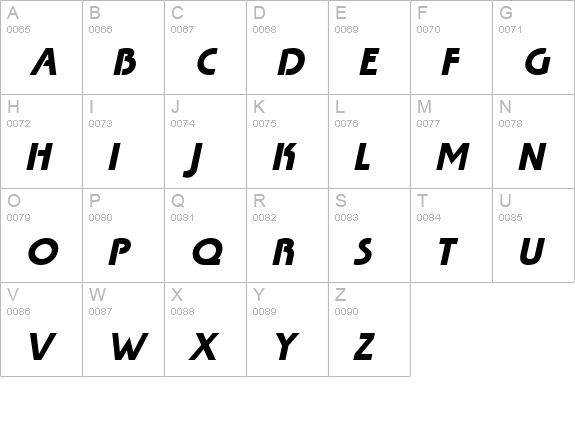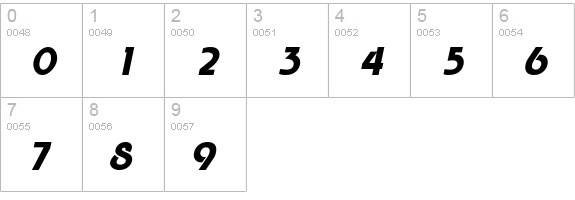
Tabatha Italic is a distinctive, italic variant in the Tabatha typeface family \xE2\x80\x94 well suited to design and typography projects.
Introducing the exquisite and elegant Tabatha Italic font, designed to captivate and enchant with its sleek curves and graceful strokes. This font is perfect for adding a touch of sophistication and refinement to any project, whether it be a wedding invitation, a logo design, or a luxurious branding campaign. Tabatha Italic is a true embodiment of timeless beauty and class, effortlessly blending modern aesthetics with a hint of vintage charm. Its delicate letterforms gracefully flow across the page, creating a sense of elegance and elegance. Every character is meticulously crafted, ensuring a smooth and seamless reading experience. But what truly sets Tabatha Italic apart is its availability as a free download. Yes, you read that right! This stunning font can be freely accessed and downloaded at FontsMarket.com. It's a rare opportunity to add such a high-quality font to your collection without any cost. Whether you're a professional designer looking to elevate your creations or an individual wanting to add a touch of sophistication to personal projects, Tabatha Italic is the perfect choice. Its versatility and timeless appeal make it suitable for a wide range of applications, from branding and advertising to stationery and social media graphics. So don't miss out on this incredible opportunity to enhance your design work with Tabatha Italic. Head over to FontsMarket.com and download this free font today. Let your creativity soar and watch as your projects come to life with a touch of elegance and charm that only Tabatha Italic can provide.